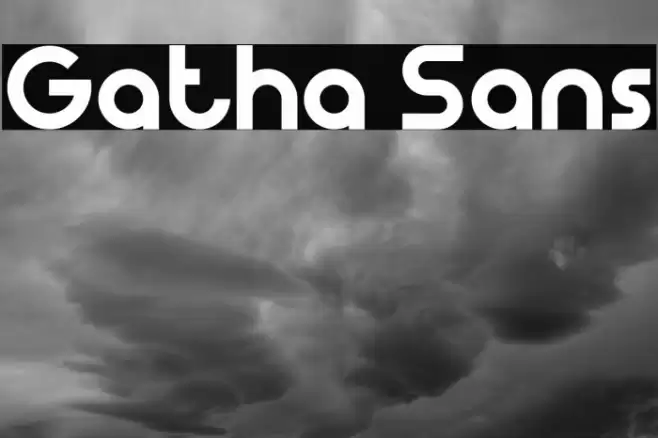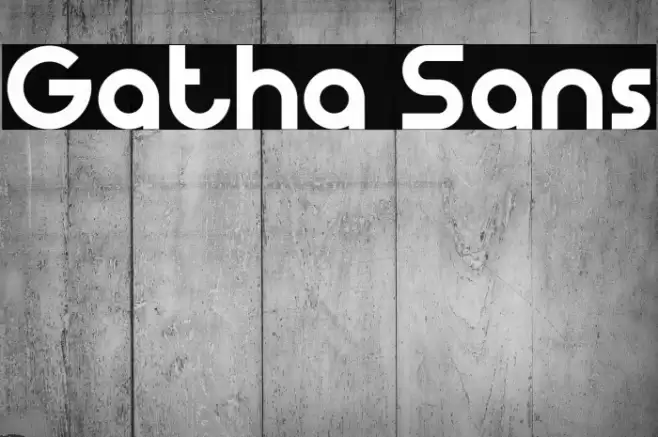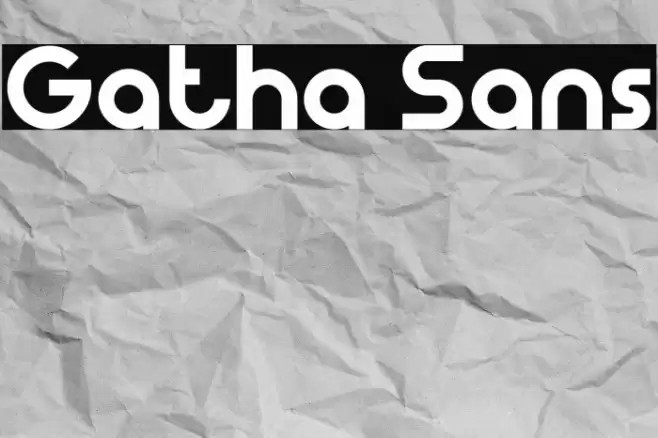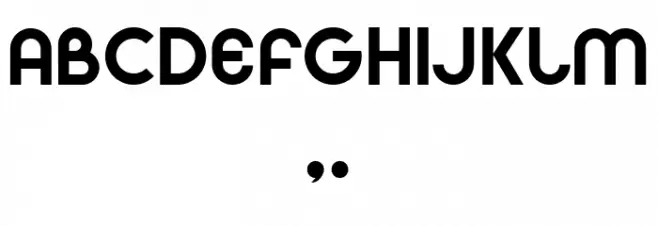
Gatha Sans Font
Gatha Sans Description
This font features a modern and geometric sans-serif style with a clean and minimalistic appearance. The characters are well-balanced with a consistent stroke width, creating a harmonious and uniform look. The rounded edges and smooth curves give it a friendly and approachable feel, while the straight lines and sharp angles add a touch of sophistication. The uppercase and lowercase letters maintain a cohesive design, ensuring readability and versatility across various applications. The font's simplicity makes it suitable for a wide range of design projects, from digital interfaces to print media.
A modern, geometric sans-serif font with a clean and minimalistic style from Regular fonts.
- Proposed Projects: Ideal for branding, web design, advertising, and editorial layouts.